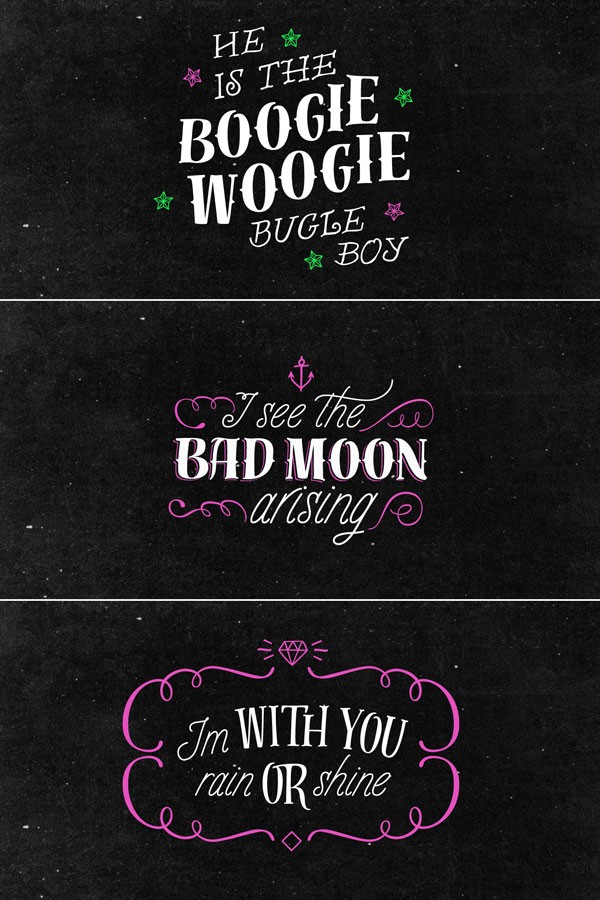
Distillery, a versatile hand-drawn font set for display use.
The Distillery fonts were made by type designer Carolina Marando with the help of Alejandro Paul who produced and expanded the digital work. The full set contains 5 fonts: Display, Strong, Script, Caps, and Icons.
Distillery draws inspiration by letterings from different eras and styles. The versatile hand-drawn fonts reflect influences from Roman majuscules, Arts & Crafts movement, tattoos, and some old typography trends. All the different styles can be used individually as well as in combination. Especially by combining the different styles of the Distillery set, you can create versatile titles. The set includes a wide range of characters as well as different alternates, stylish ligatures, initials and terminals, several variations of ascenders and descenders, icons and ornaments, etc.
You can use this set for headlines and titles in a variety of applications. With the Distillery fonts, you can create letterings in the style of cool chalkboard art or handmade labels in packaging.